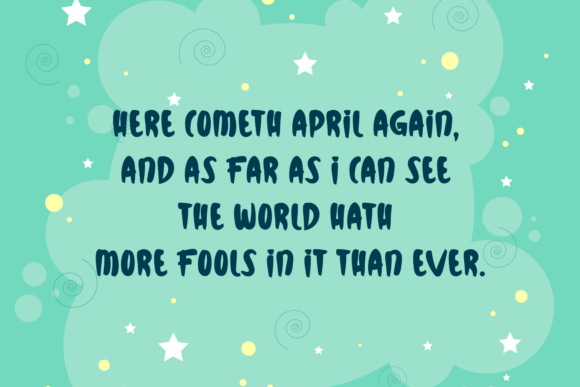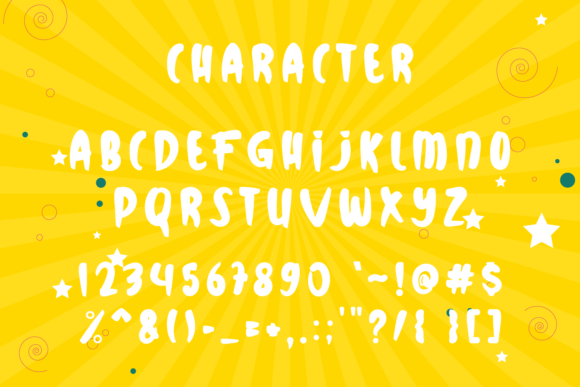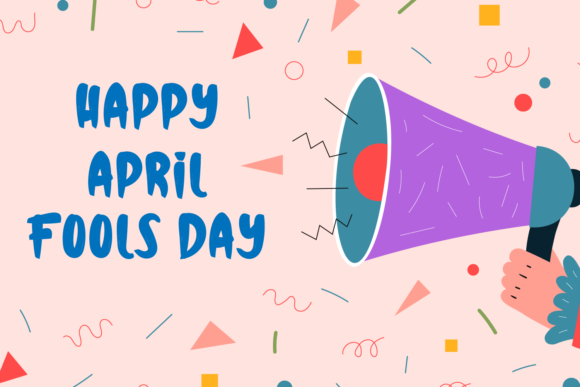
Fool Day Font: Add a Touch of Youth and Joy to Your Designs
Are you looking for a font that can add a playful and carefree touch to your designs? Look no further than the Fool Day Font! This fun and relaxed brushed display font is perfect for party invitations, swimming gatherings, and any design that requires a dash of youth and joy.
What is Fool Day Font?
Fool Day Font is a unique and eye-catching font that is designed to bring a smile to people’s faces. Its brushed display style gives it a laid-back and casual feel, making it perfect for designs that need to convey a sense of fun and playfulness.
Key Features of Fool Day Font
- Fun and Relaxed Style: Fool Day Font has a carefree and playful vibe that is sure to grab attention.
- Brushed Display Style: The font’s brushed style gives it a unique and hand-crafted feel.
- Perfect for Party Invitations: Whether you’re planning a birthday party, a wedding, or just a casual get-together, Fool Day Font is the perfect choice.
- Great for Swimming Gatherings: The font’s fun and playful style makes it ideal for designs related to swimming, beach parties, and other water-themed events.
- Versatile: Fool Day Font can be used for a wide range of designs, from posters and flyers to social media graphics and party decorations.
How to Use Fool Day Font in Your Designs
Using Fool Day Font in your designs is easy! Here are a few tips to get you started:
- Pair it with Other Fonts: Fool Day Font pairs well with clean and simple fonts like Arial, Helvetica, or Open Sans.
- Use it for Headlines: The font’s bold and playful style makes it perfect for headlines and titles.
- Add Color: Fool Day Font looks great in bright and bold colors, so don’t be afraid to experiment with different color schemes.
- Experiment with Different Sizes: The font’s versatility means it can be used at a variety of sizes, from small text to large headlines.
Why Designers and Crafters Love Fool Day Font
Fool Day Font has quickly become a favorite among designers and crafters, and for good reason. Here are a few reasons why:
- Unique Style: Fool Day Font has a unique and eye-catching style that sets it apart from other fonts.
- Versatile: Fool Day Font can be used for a wide range of designs, from party invitations to social media graphics.
- Fun and Playful: The font’s fun and playful style makes it perfect for designs that need to convey a sense of youth and joy.
If you’re looking for a font that can add a touch of youth and joy to your designs, look no further than Fool Day Font. This fun and relaxed brushed display font is perfect for party invitations, swimming gatherings, and any design that requires a dash of playfulness. With its unique style, ease of use, and versatility, Fool Day Font is sure to become a favorite among designers and crafters.